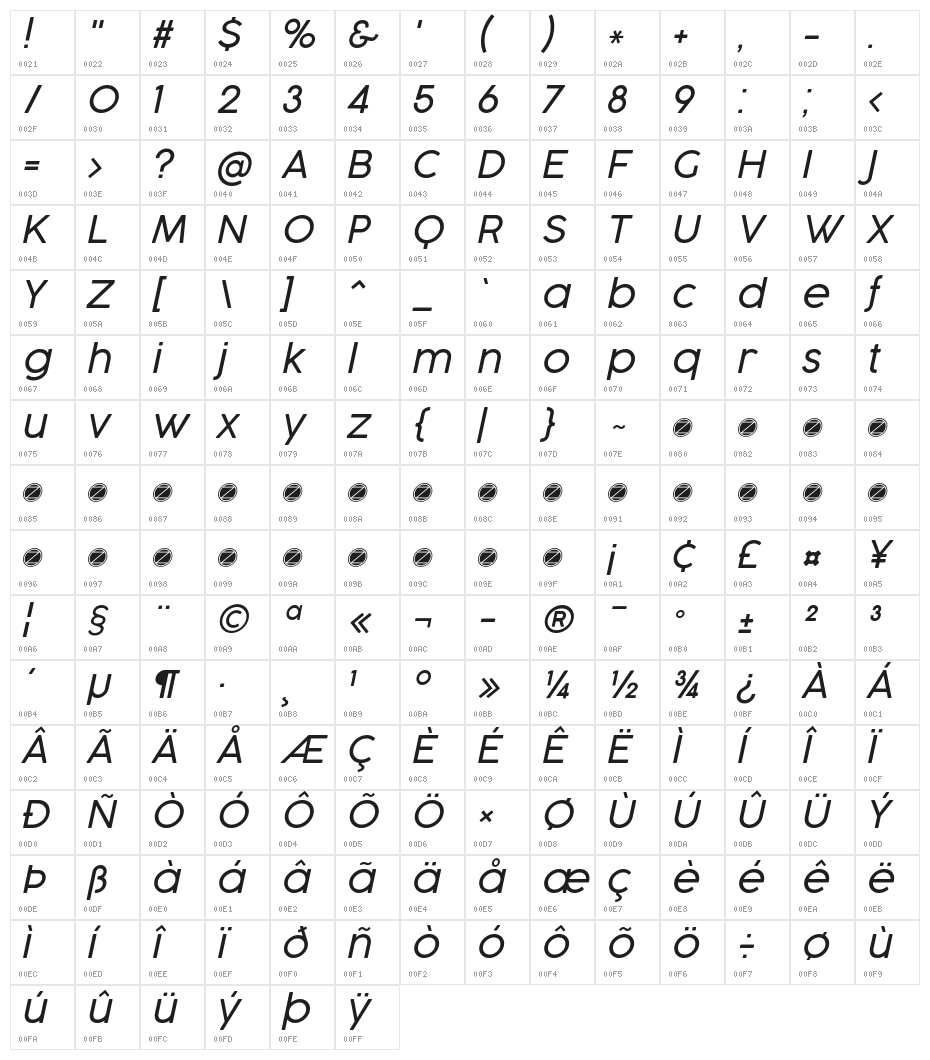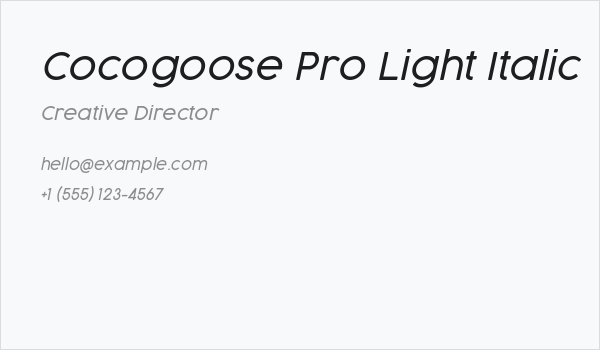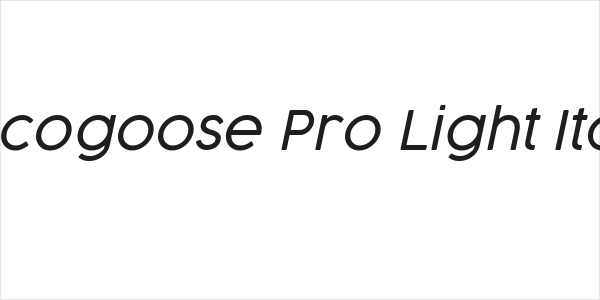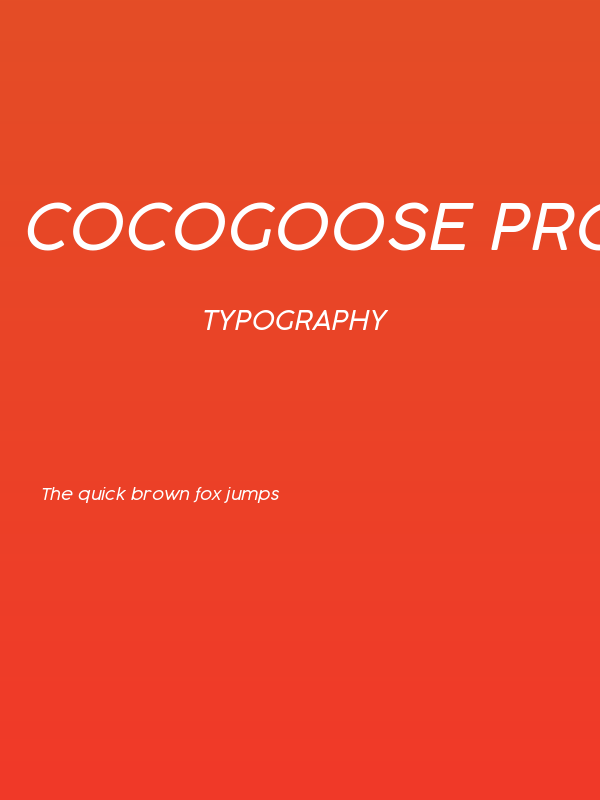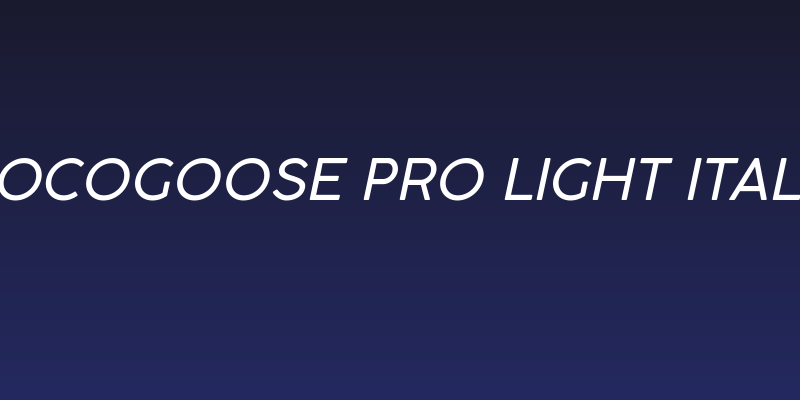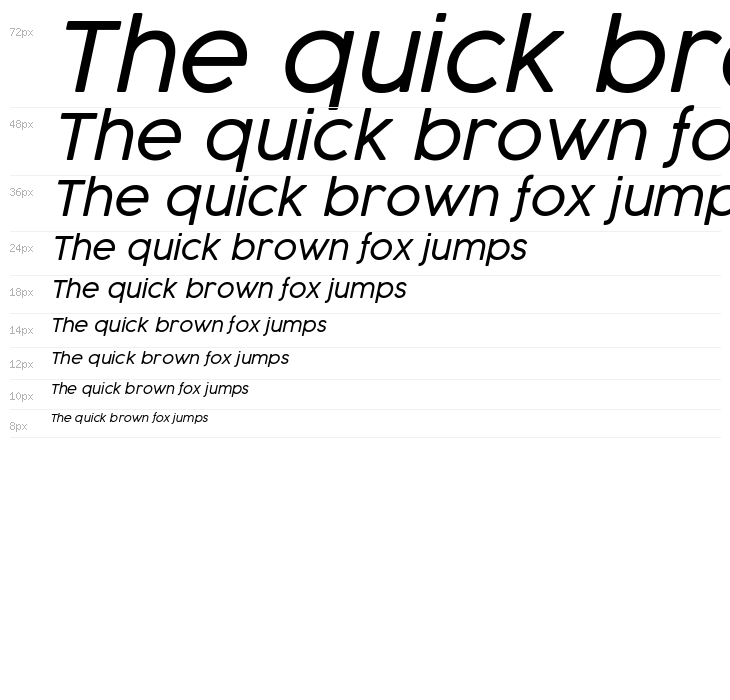
Cocogoose Pro Light Italic Font
Cocogoose Pro Light Italic Description
This font features a sleek and modern design with a light weight and italic style. It showcases a sans-serif structure with clean lines and a slightly condensed form, giving it a contemporary and elegant appearance. The characters are well-spaced, providing a balanced and readable text flow. The font's smooth curves and subtle slant add a touch of sophistication, making it suitable for various design applications. Its versatility allows it to be used in both digital and print media, enhancing the visual appeal of any project.
Proposed ProjectsIdeal for branding, editorial design, advertising, and web design projects.